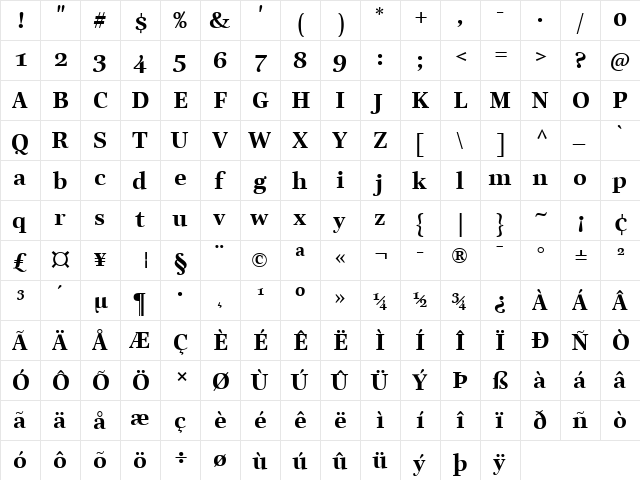
LTReally Medium Bold Font Preview
LTReally Medium Bold
Design Context for LTReally Medium Typeface
LTReally Medium is a composed and adaptable typeface that performs quietly and consistently across a wide range of design contexts. Its bold stroke weight gives it real presence on the page.